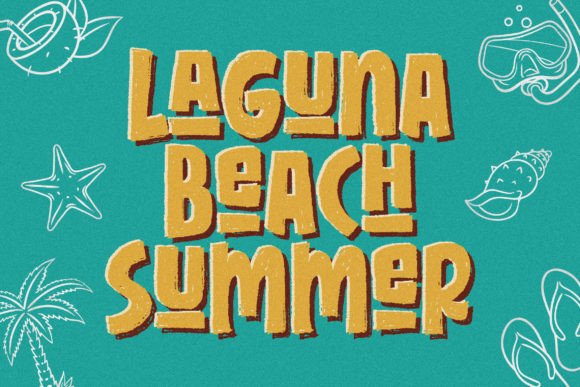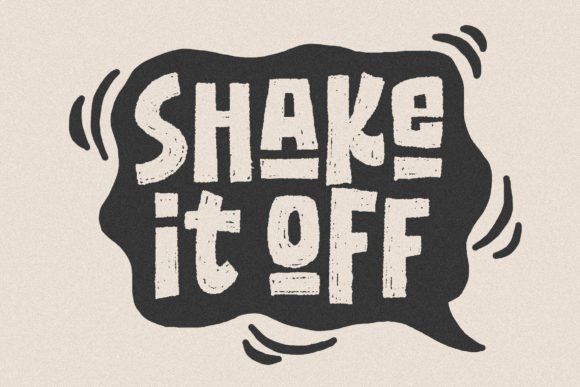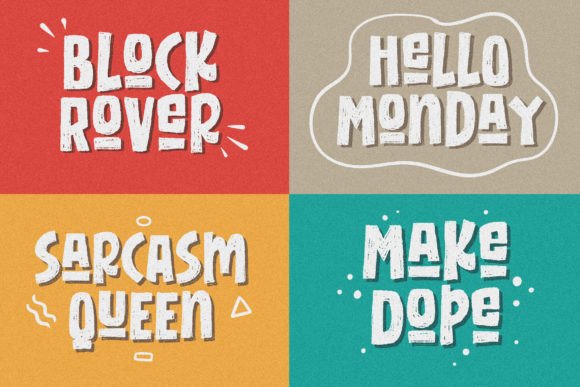
Introduction to Freaky Vibes Font
Elevate your design with the distinctive charm of β€œFreaky Vibes Font”, a unique font that seamlessly blends rugged textures with contemporary style.
This versatile font is meticulously crafted to add character and personality to your projects, making it an ideal choice for various creative applications Key Features: – Unique Texture: The font boasts a captivating rough texture that exudes authenticity and individuality, setting it apart from conventional typefaces.
Key Features of Freaky Vibes Font
Why Choose Freaky Vibes Font?
Freaky Vibes Font offers exceptional quality and versatility, making it a valuable addition to your design toolkit. Whether you’re creating for personal projects or commercial use, Freaky Vibes Font delivers professional results.